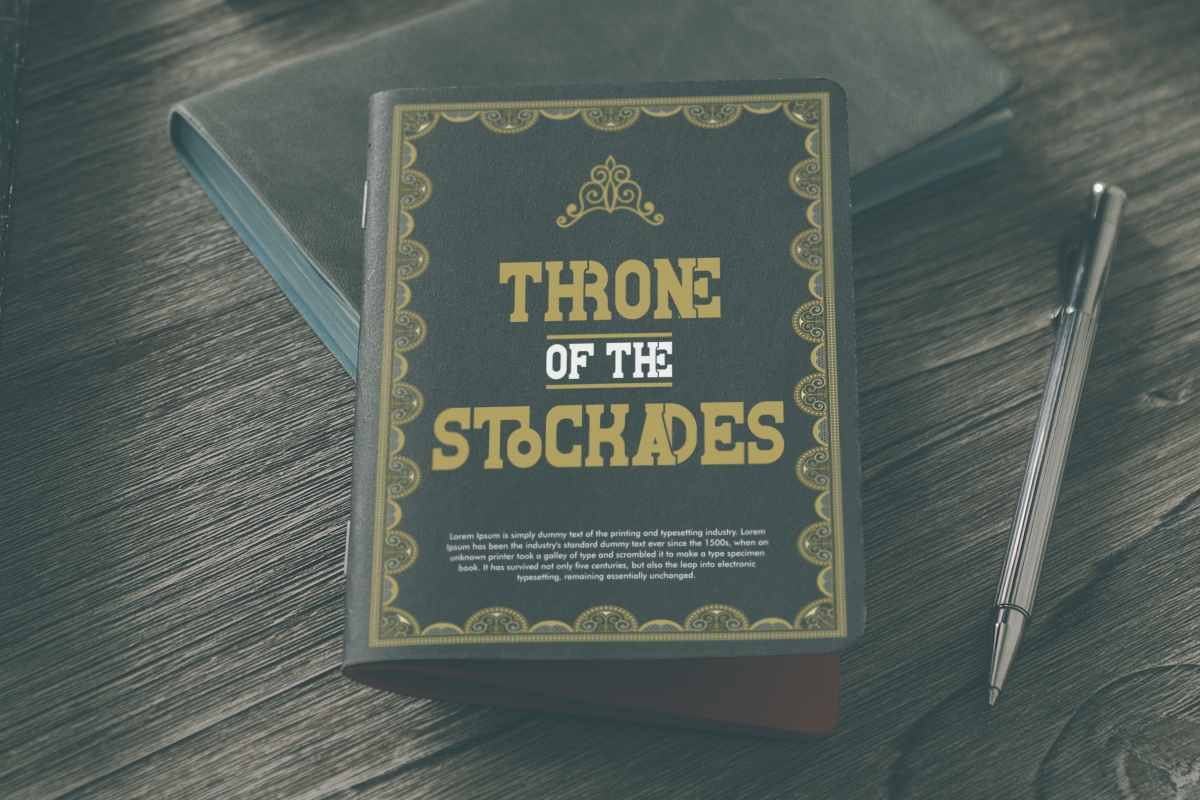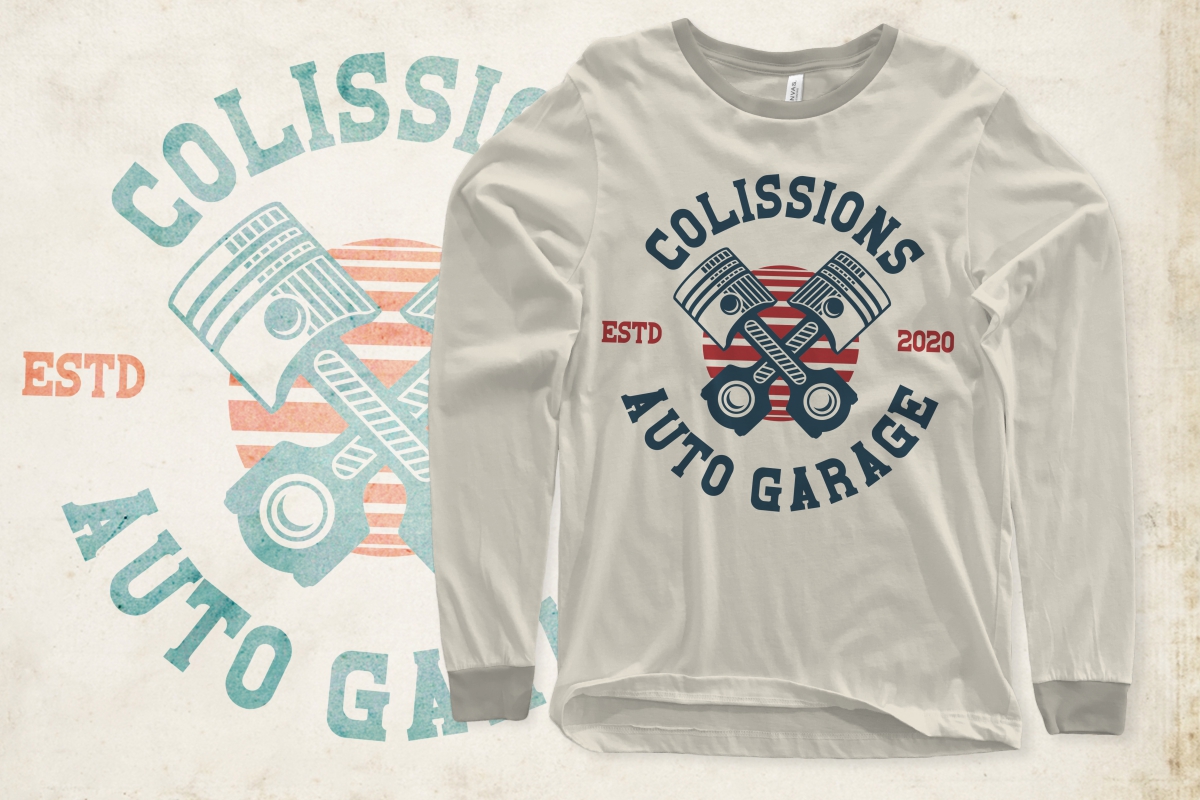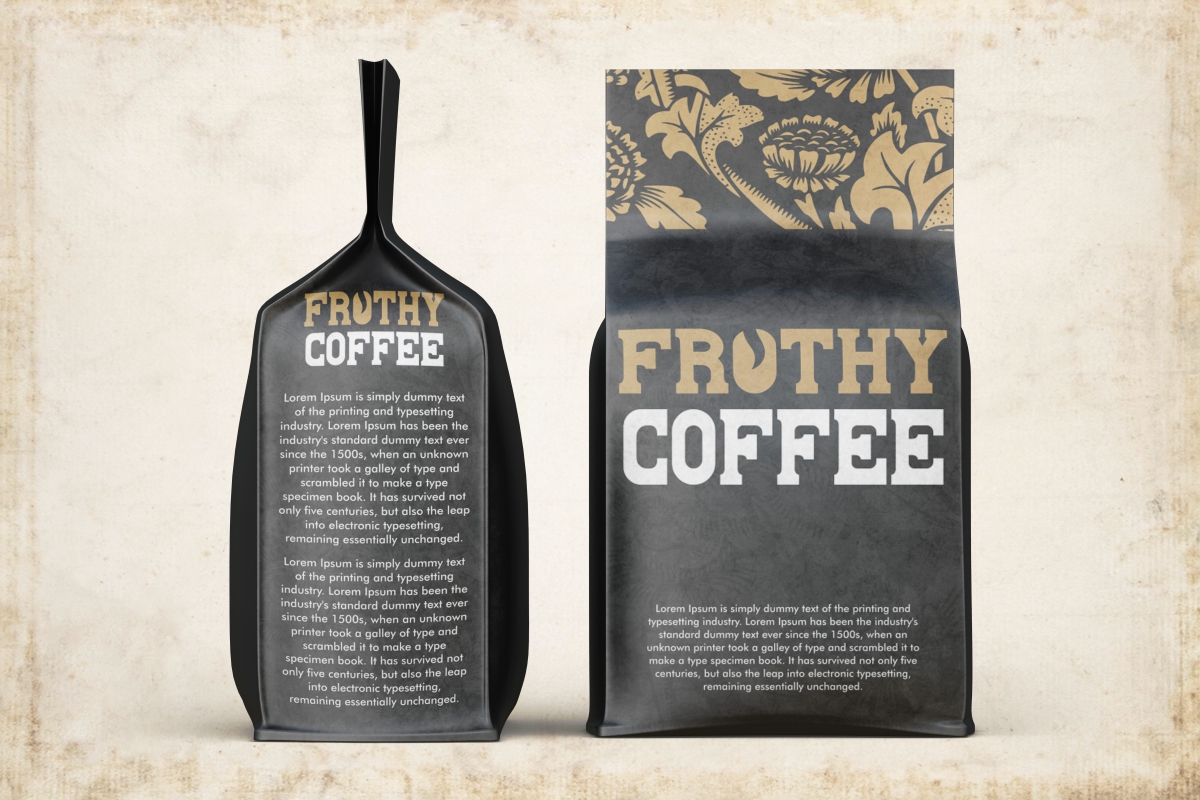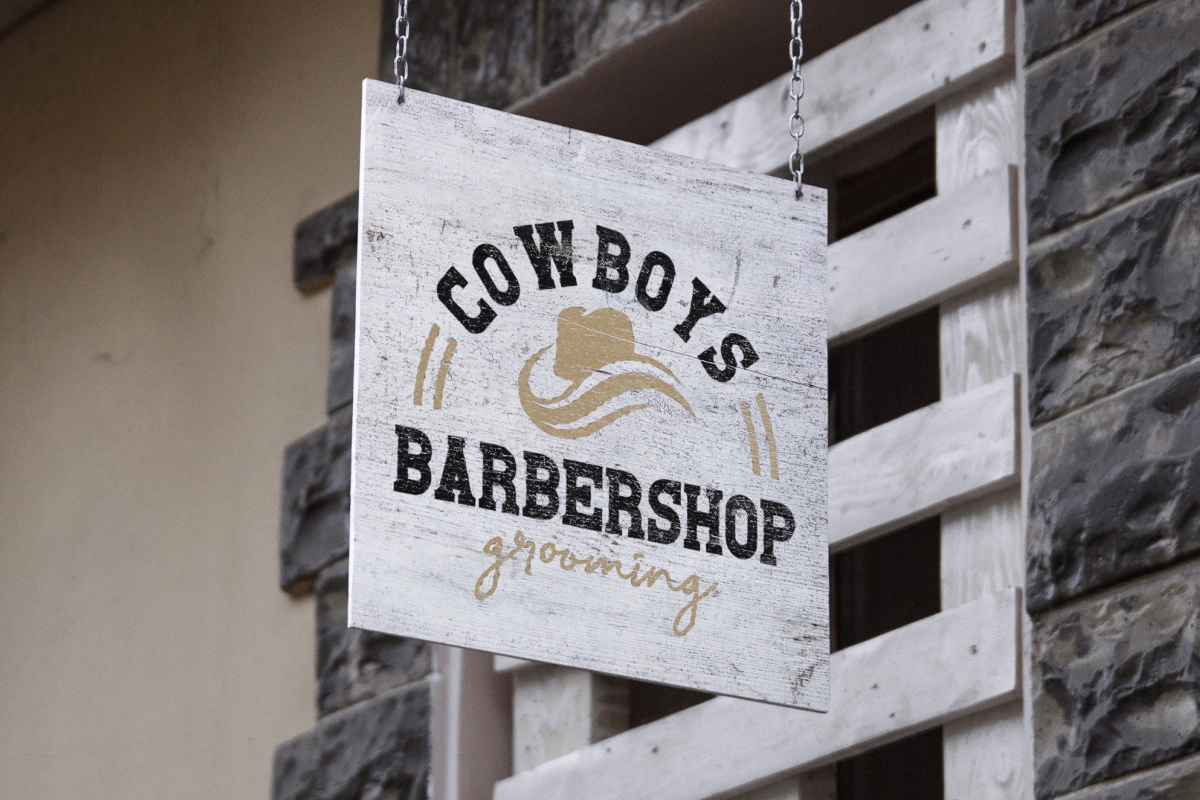
Floppers Slab Serif Font
This is classic slab serif display font style exclusively created by NoahType. This font has an authentic and exclusive look that gives it a perfect and easy to read. It will be amazing for any industry: automotive, barbershop, café, equestrian, fashion, snack food, writer, and more.
Floppers Font includes Uppercase Base Characters with one size, Numerals and Punctuation. It will be amazing for any project: apparel print design, brochure, creating logo, headers, product packaging, signage, and more. Perfect your amazing projects with this typography.